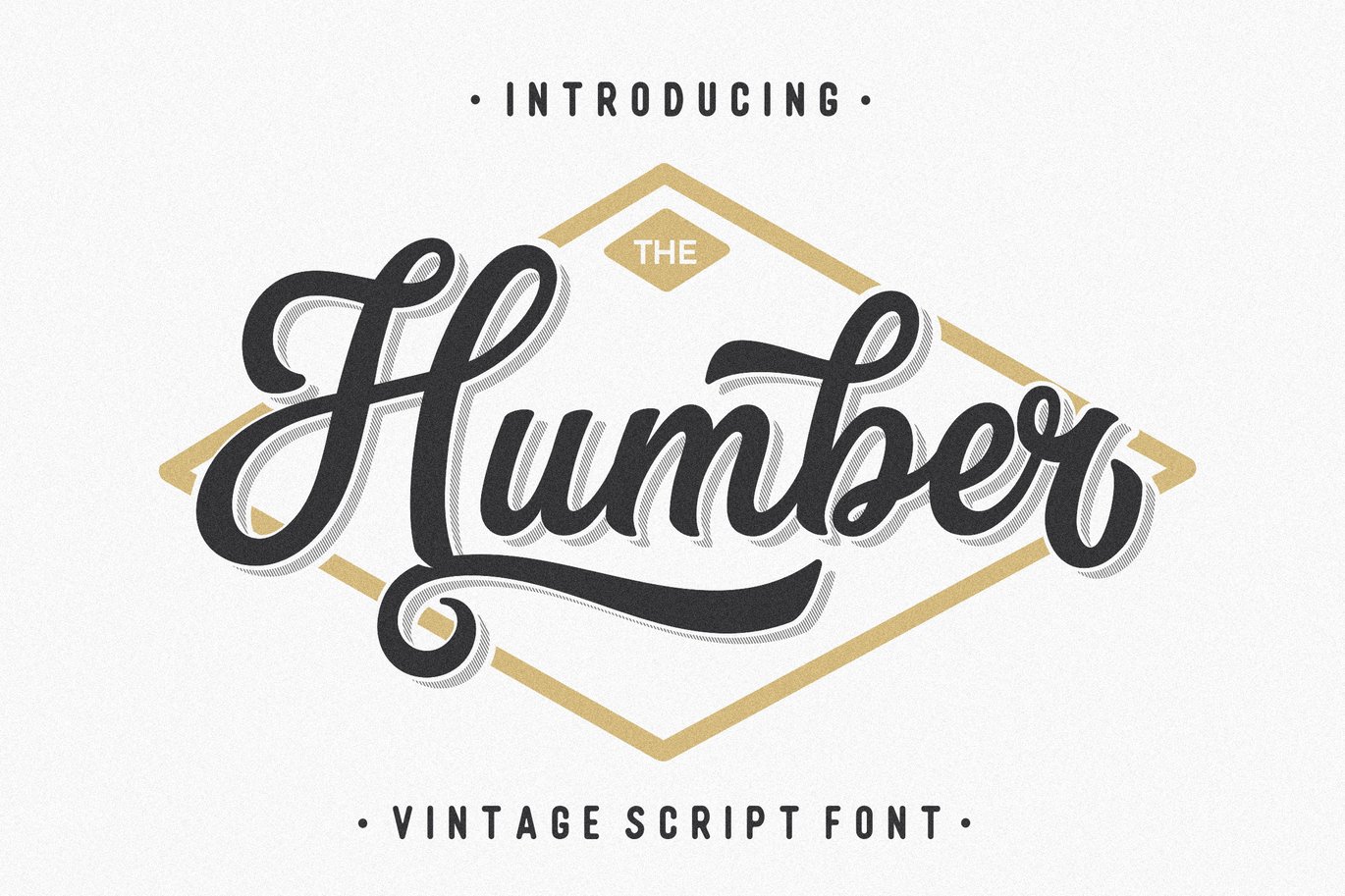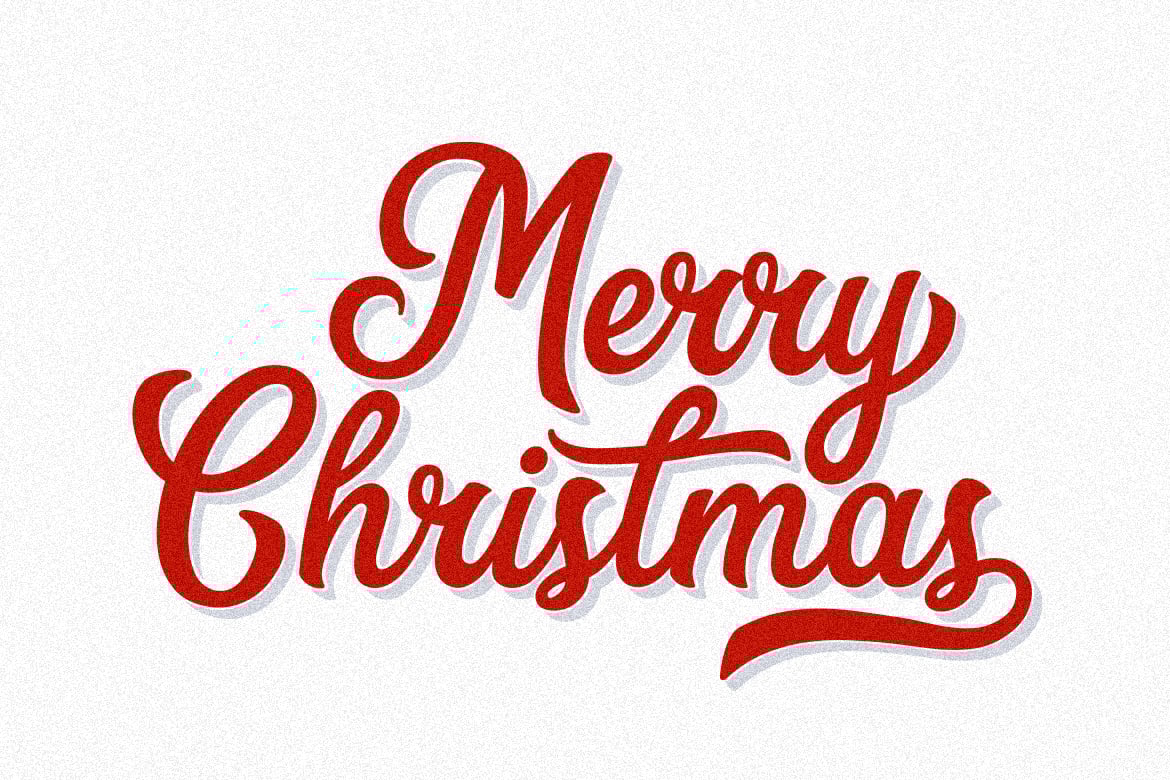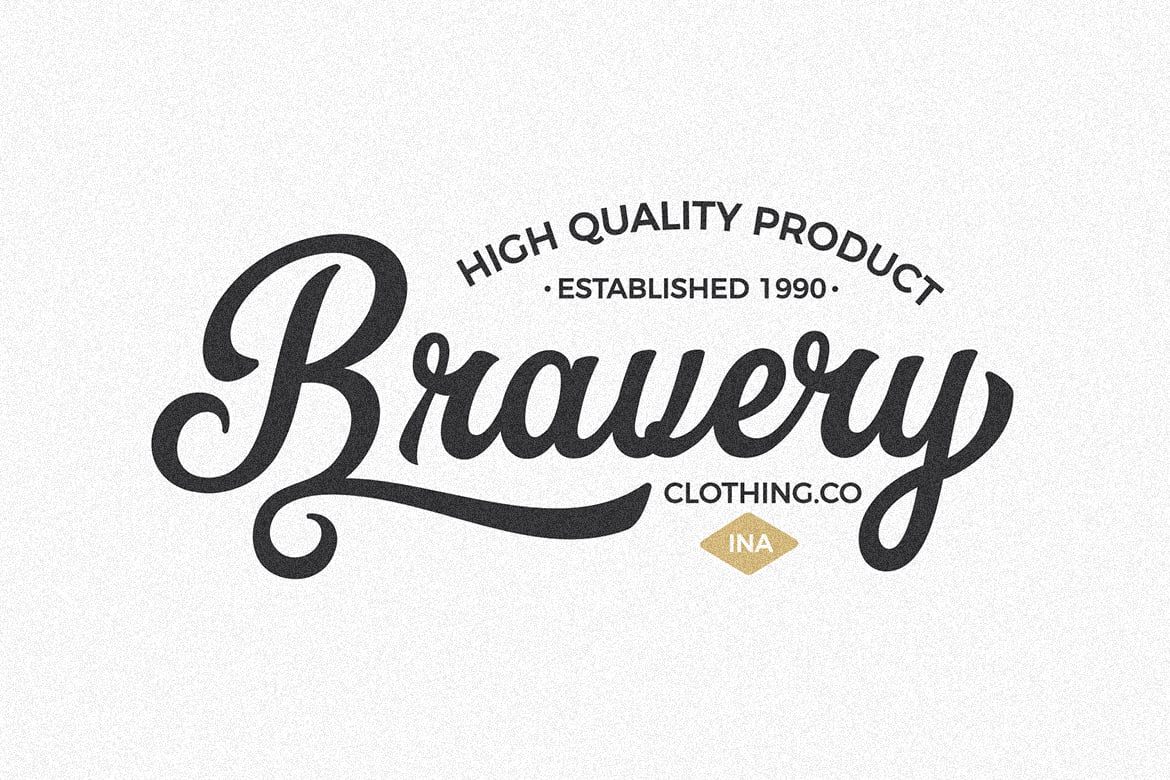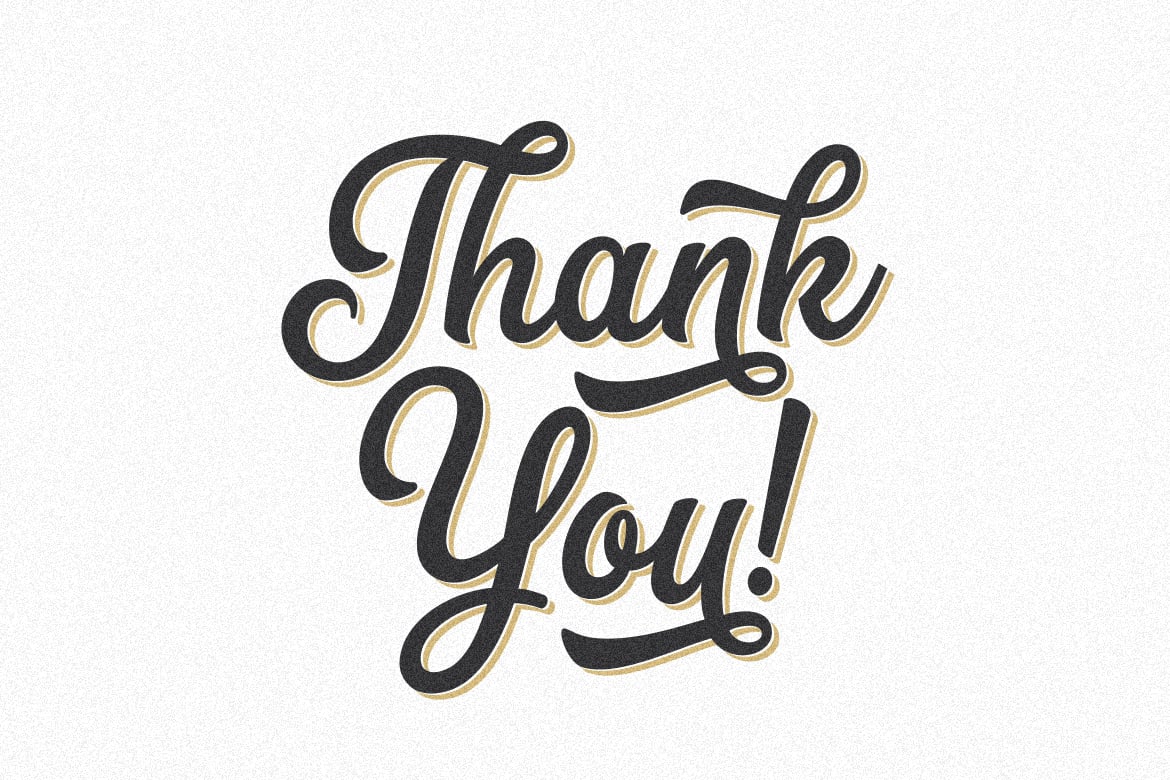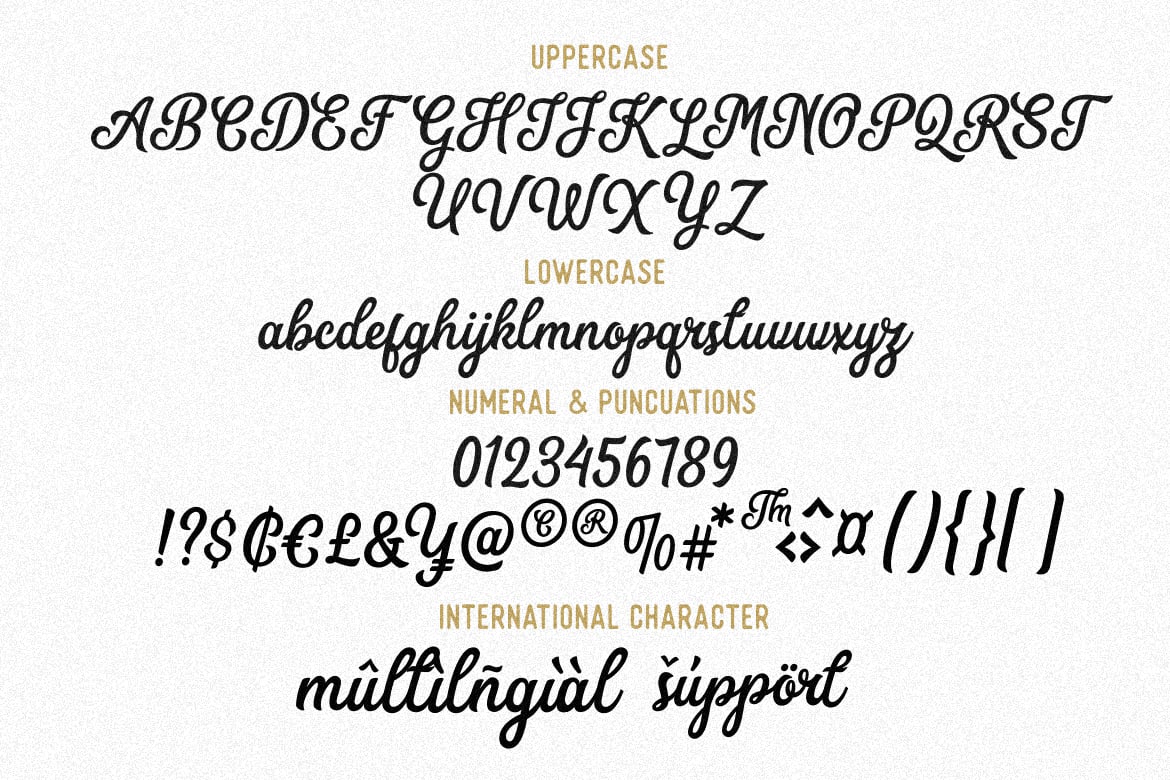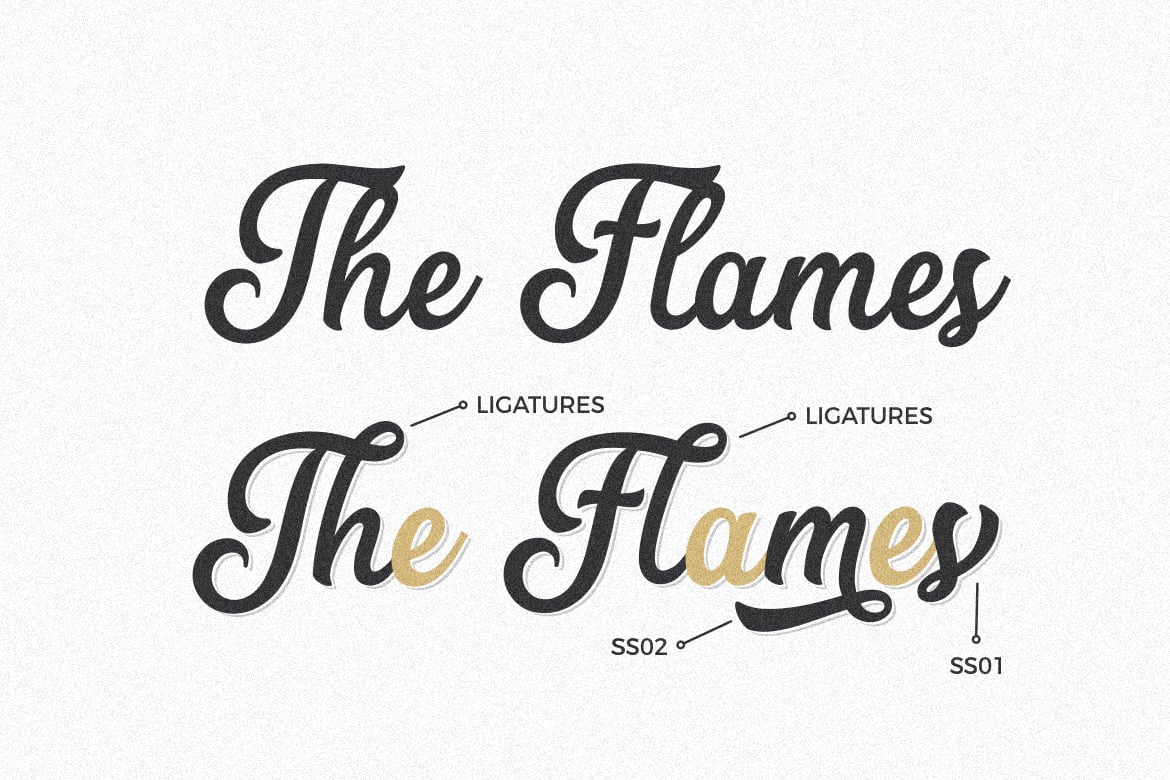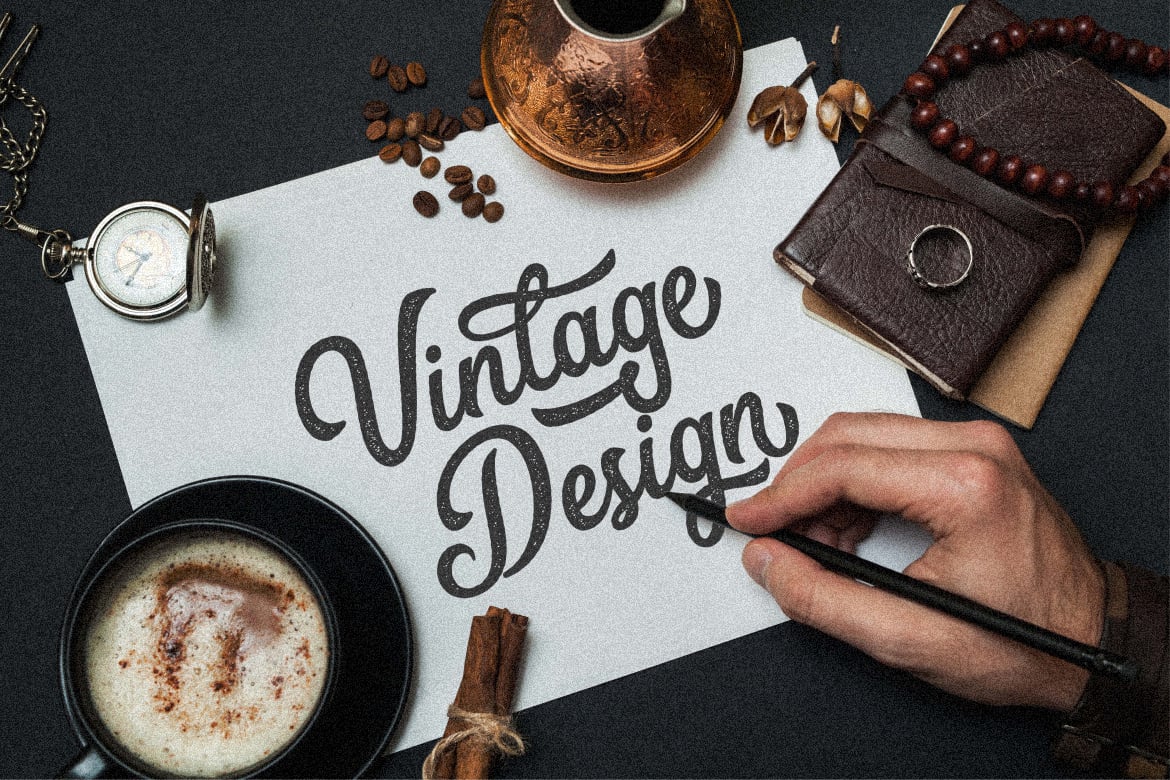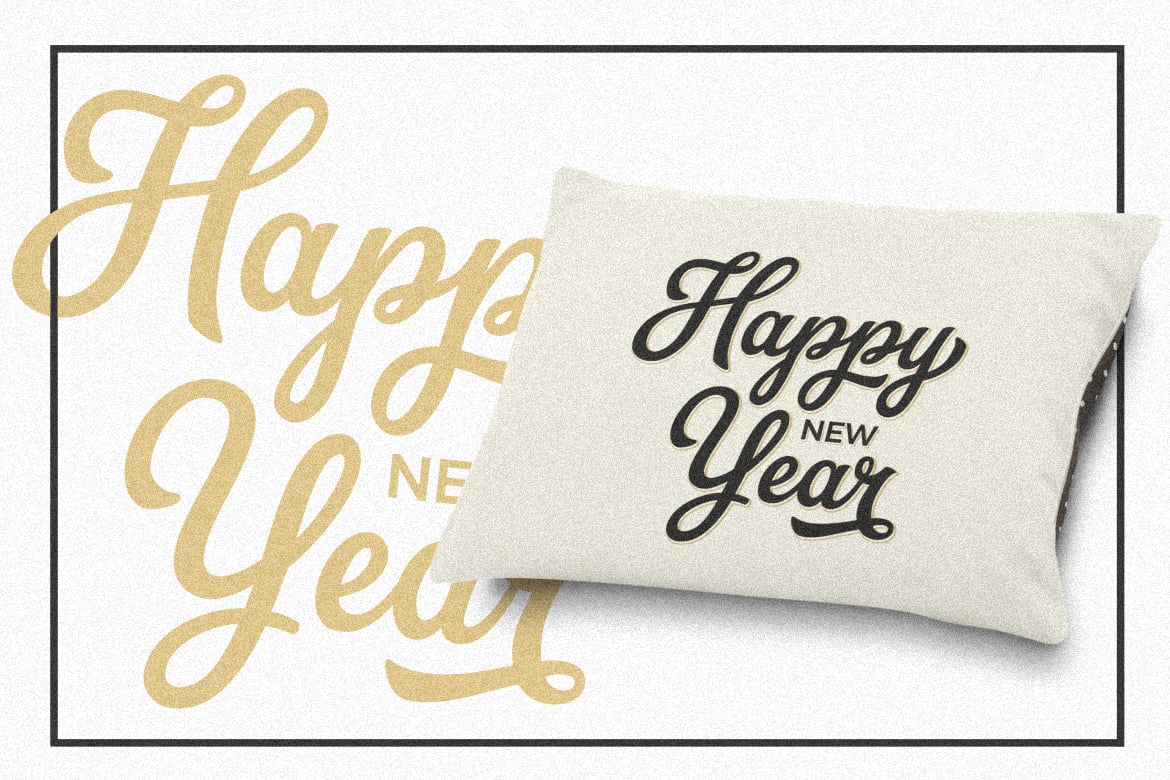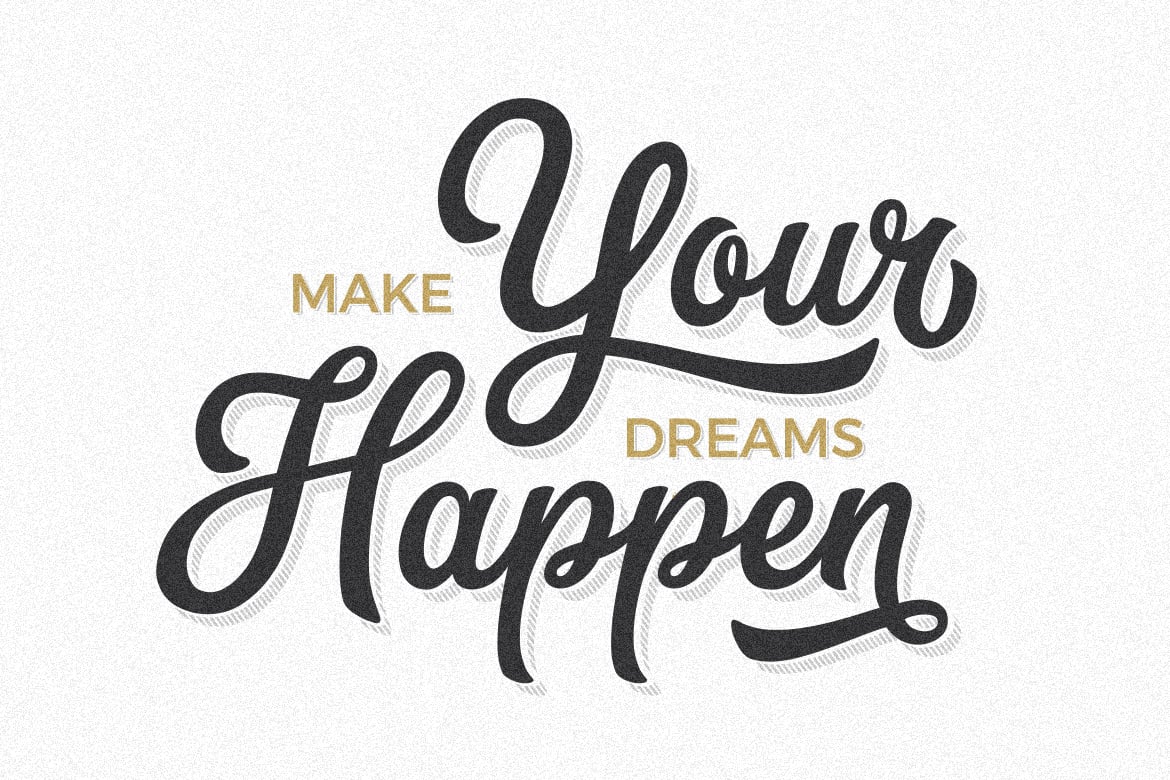
The Humber – Vintage Bold Script Font
The Humber font was made with classic taste combine with moderns script, the combination of those styles delivered us the beauty of typeface. with ‘opentype feature’ this font gives you so many options to create something unique. with the result that, The Humber Font is a great choice for your logo design, clothing, Posters, Vintage Design and many more.
The Humber Font equipped with :
- Uppercase,lowercase,numeral,punctuation & Symbol
- Stylistic alternates
- Stylistic Set01 – Stylistic Set07
- Swash